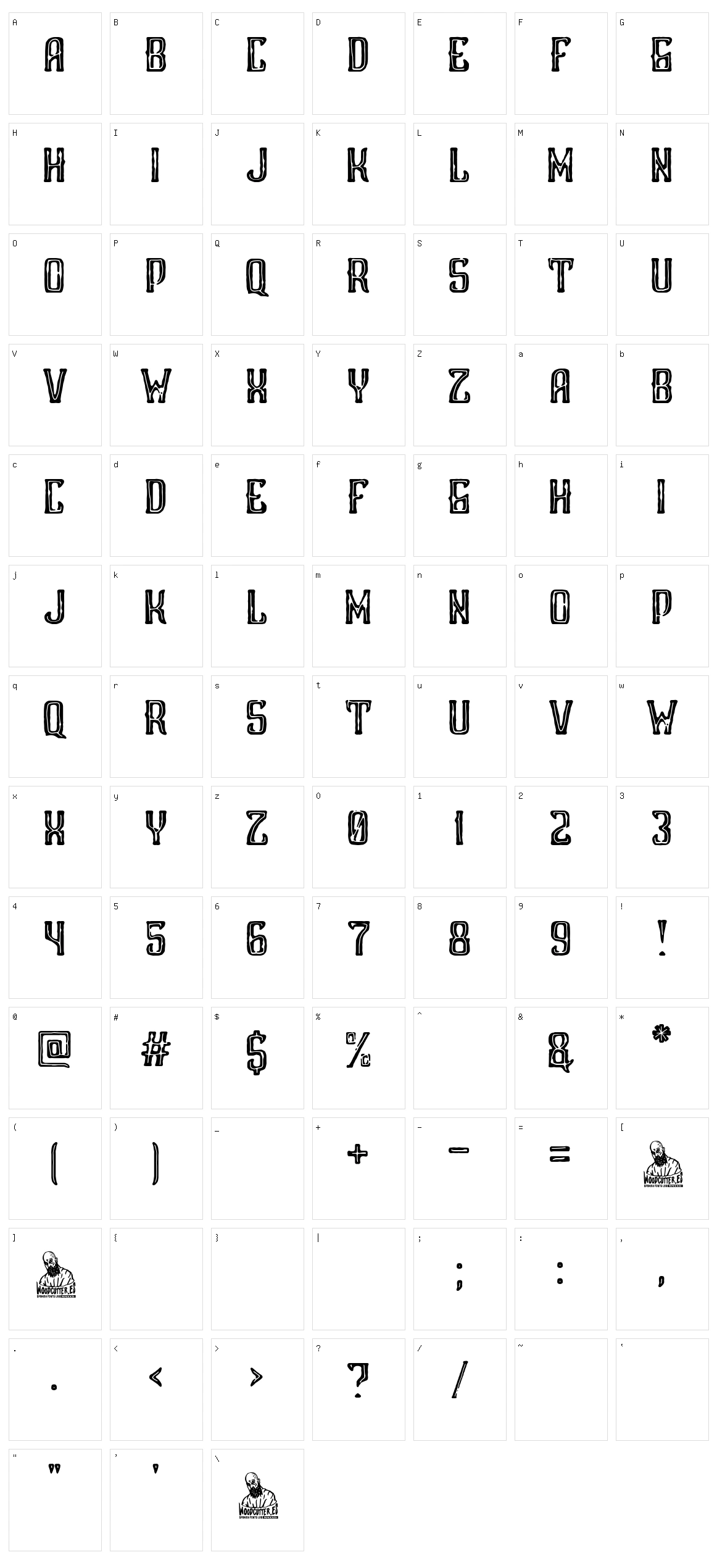
The free font The Master of Drama is carefully designed by Woodcutter, showcasing a thoughtful balance of creativity and usability and belongs to the Gothic font family. When you download the ZIP file, it contains only 66.99 KB of font files, making it lightweight and quick to download. Please review the license details below to understand permitted usage and distribution rights. If license information is not available, we recommend using this font for personal projects only or contacting the author directly for commercial usage permissions.